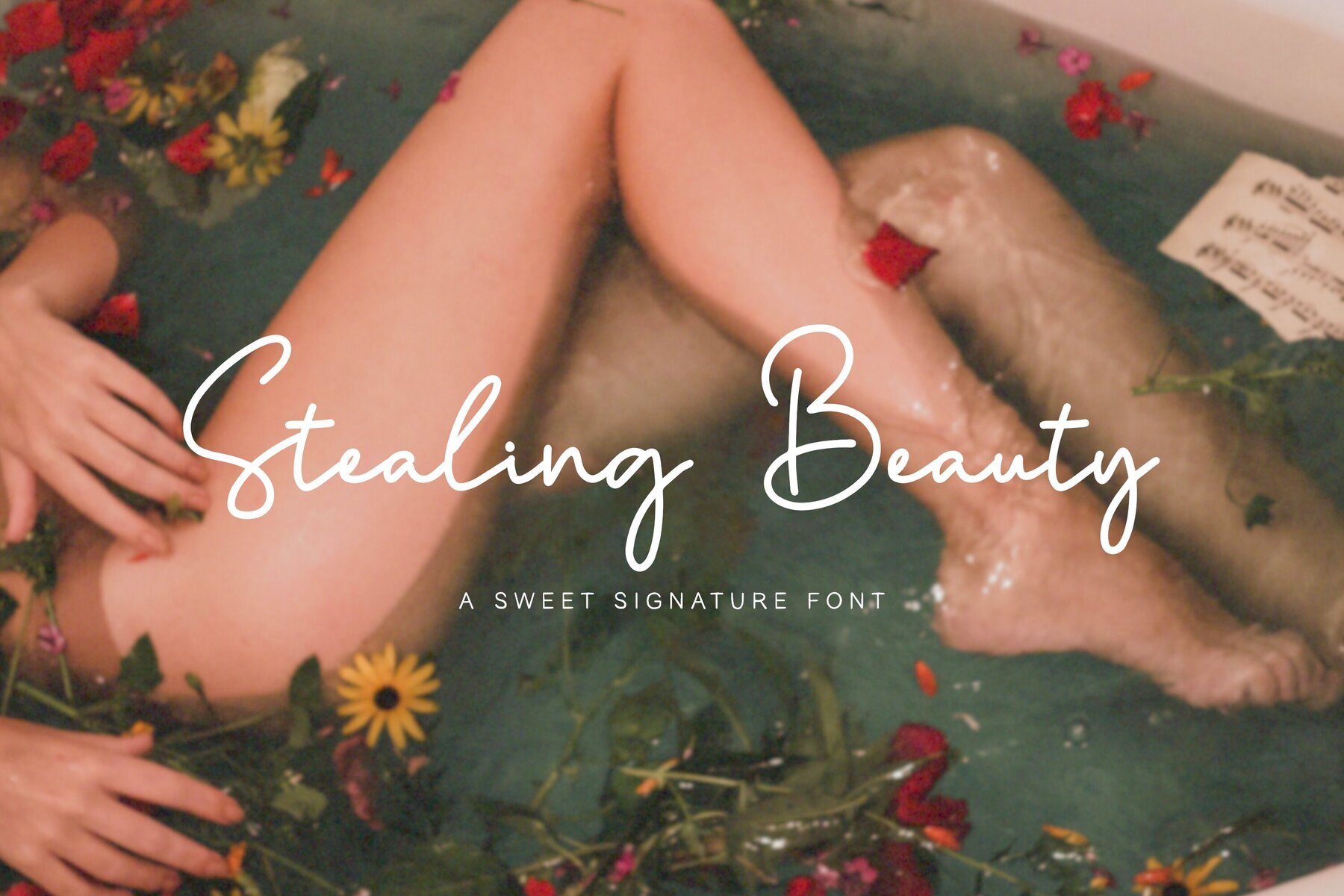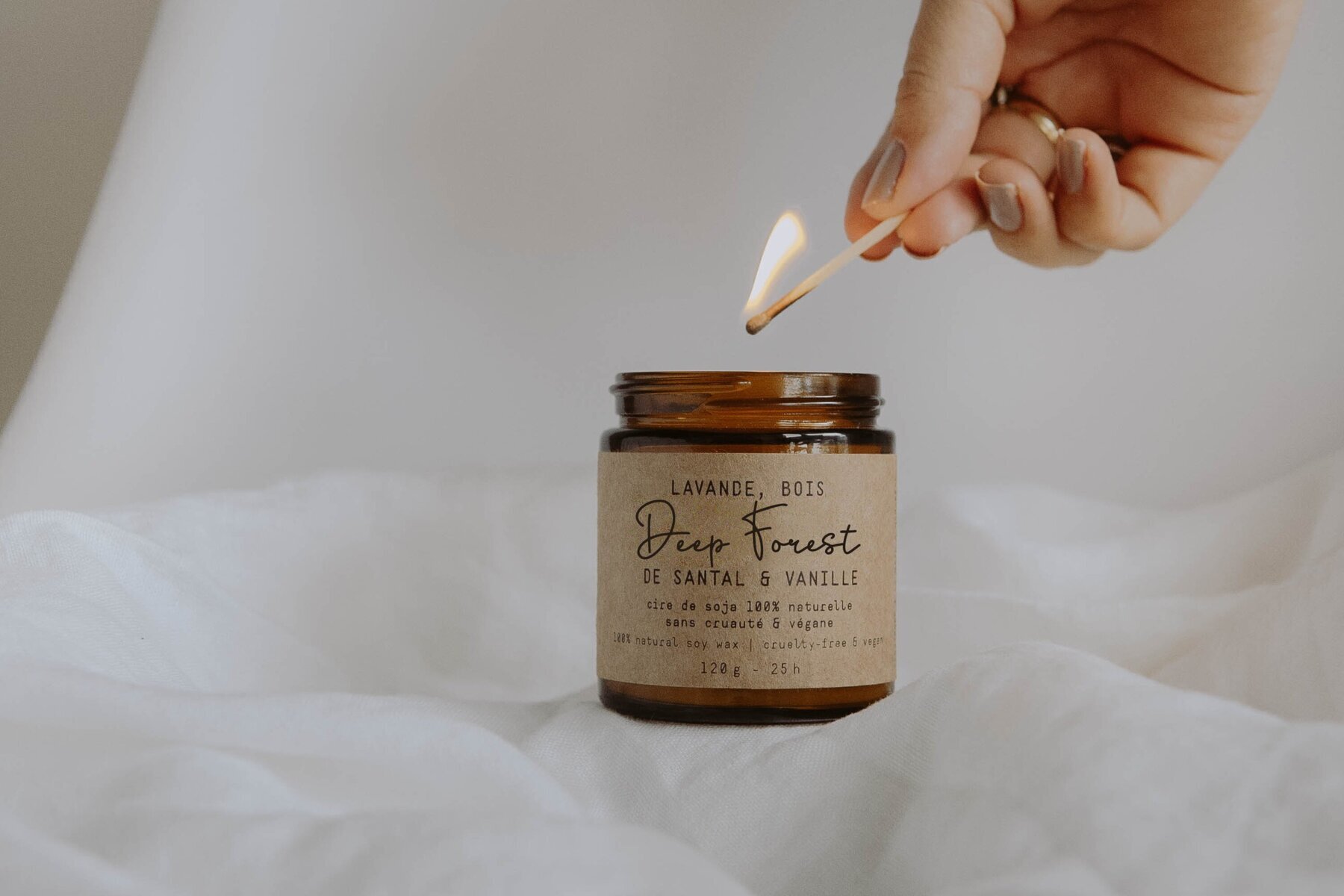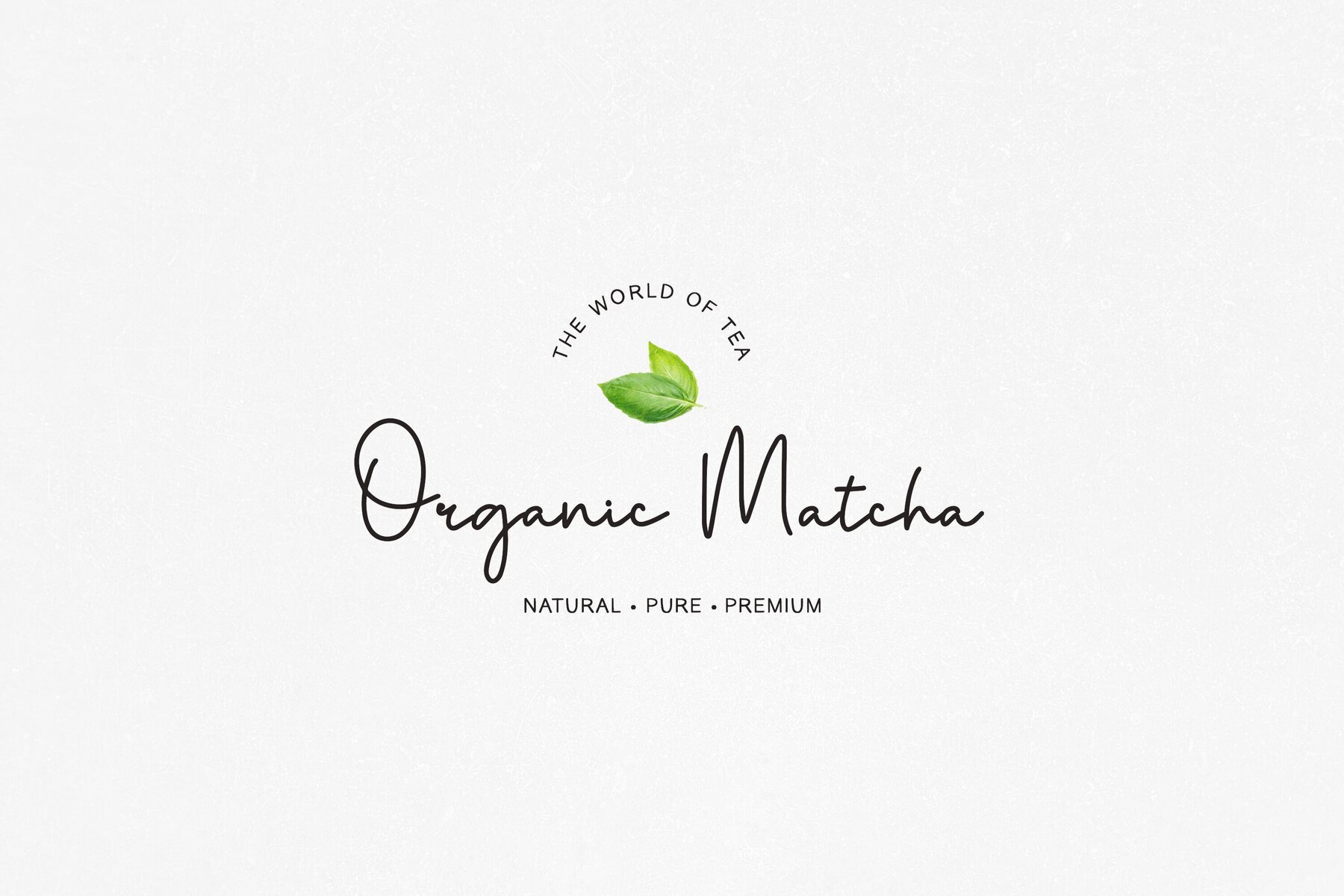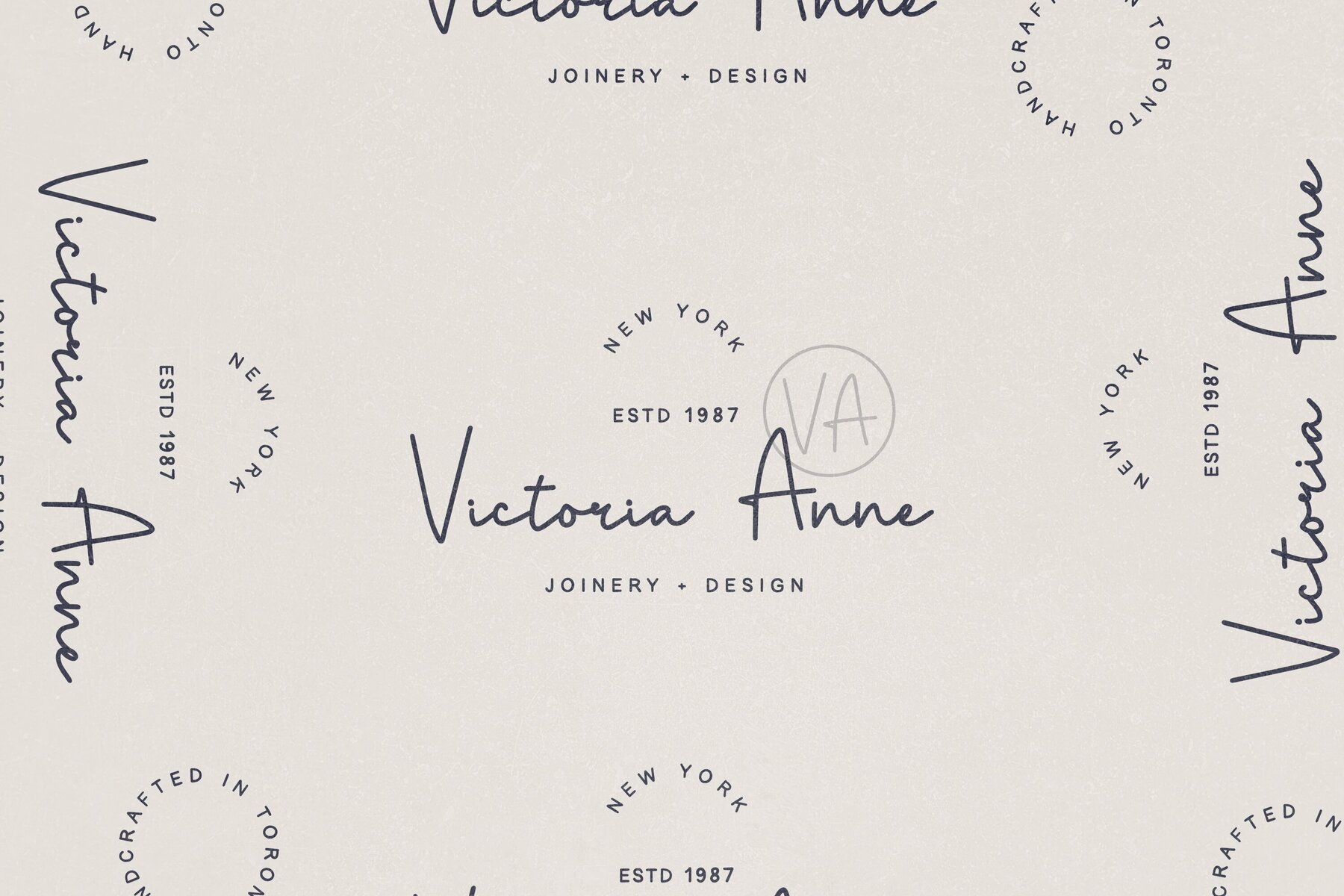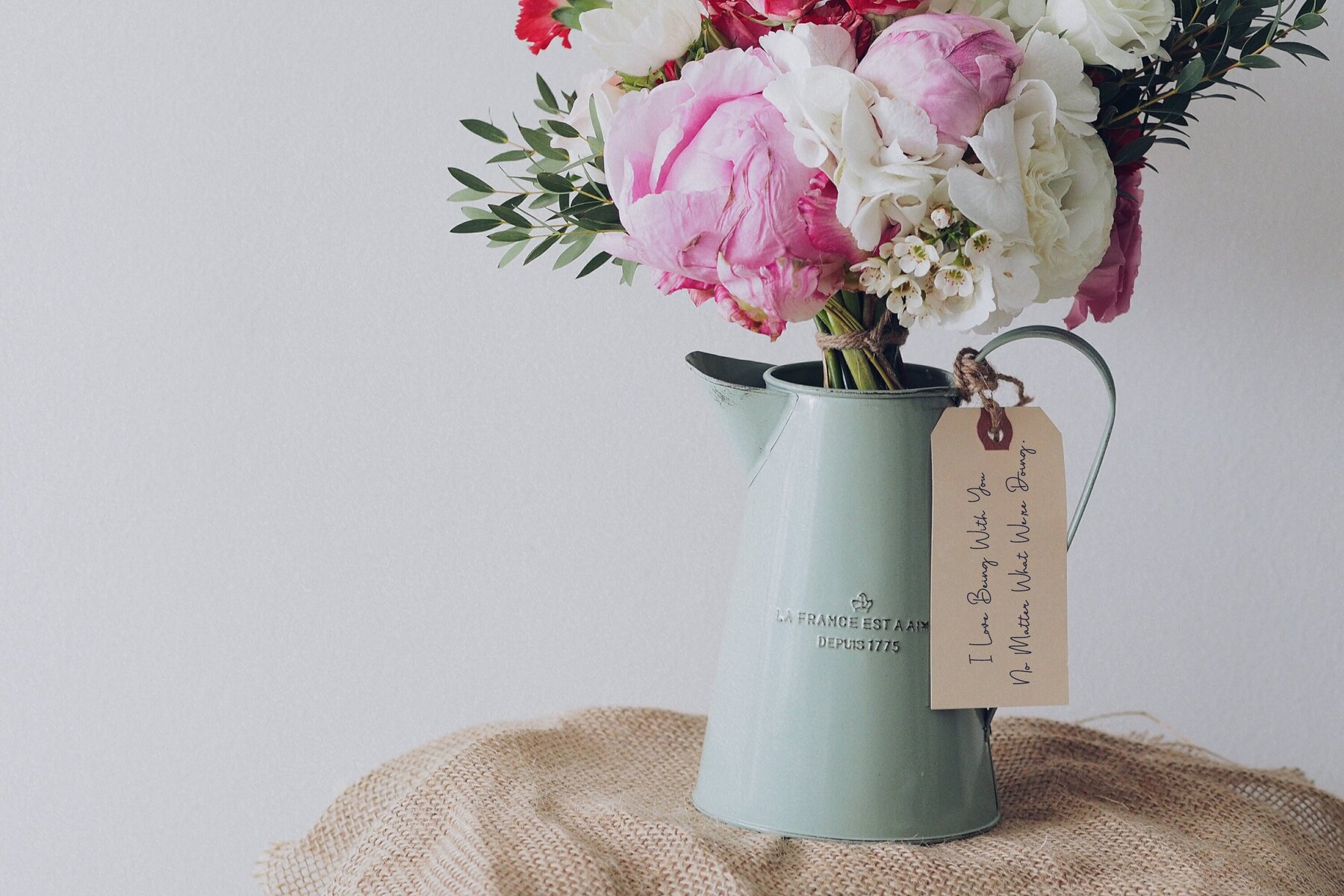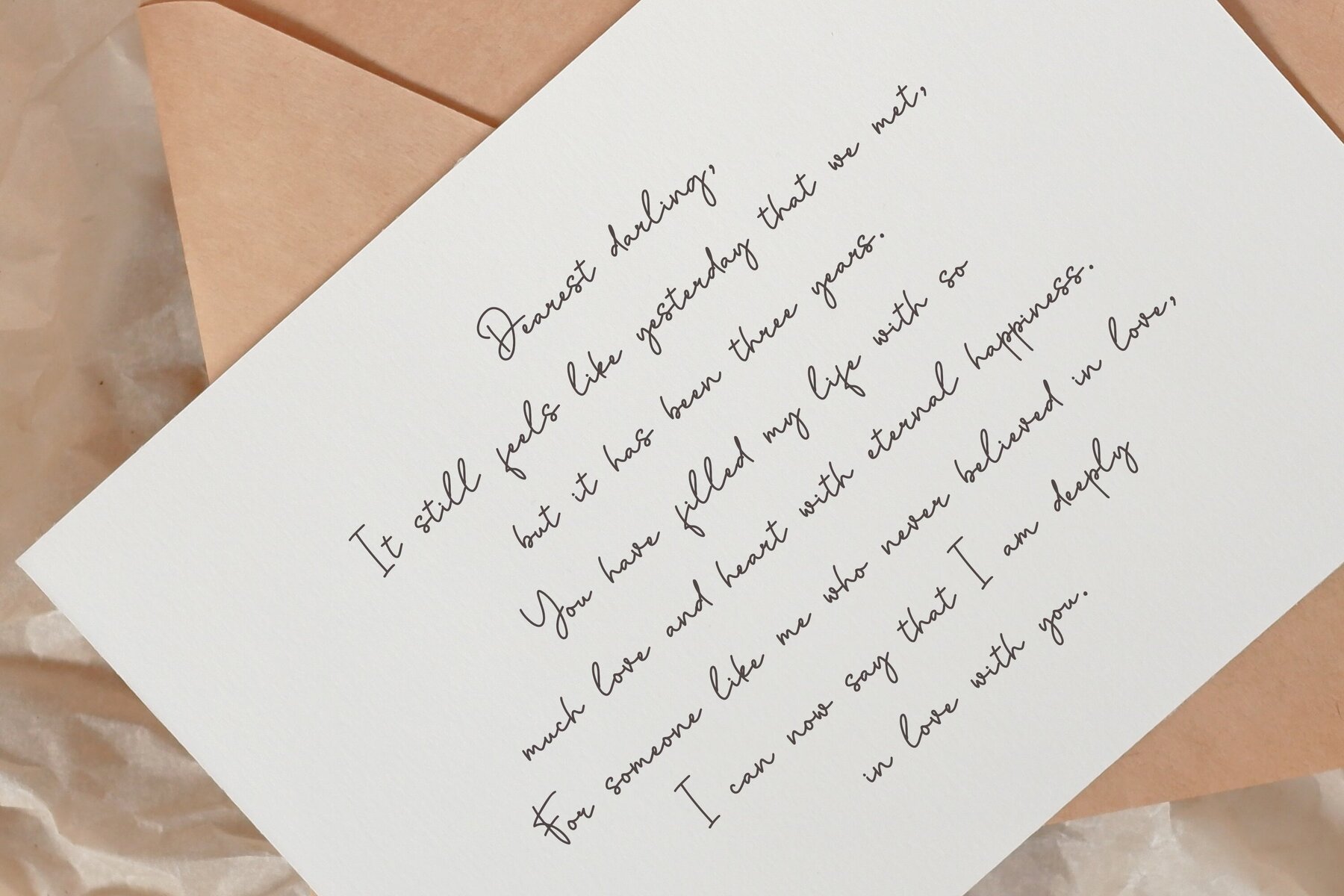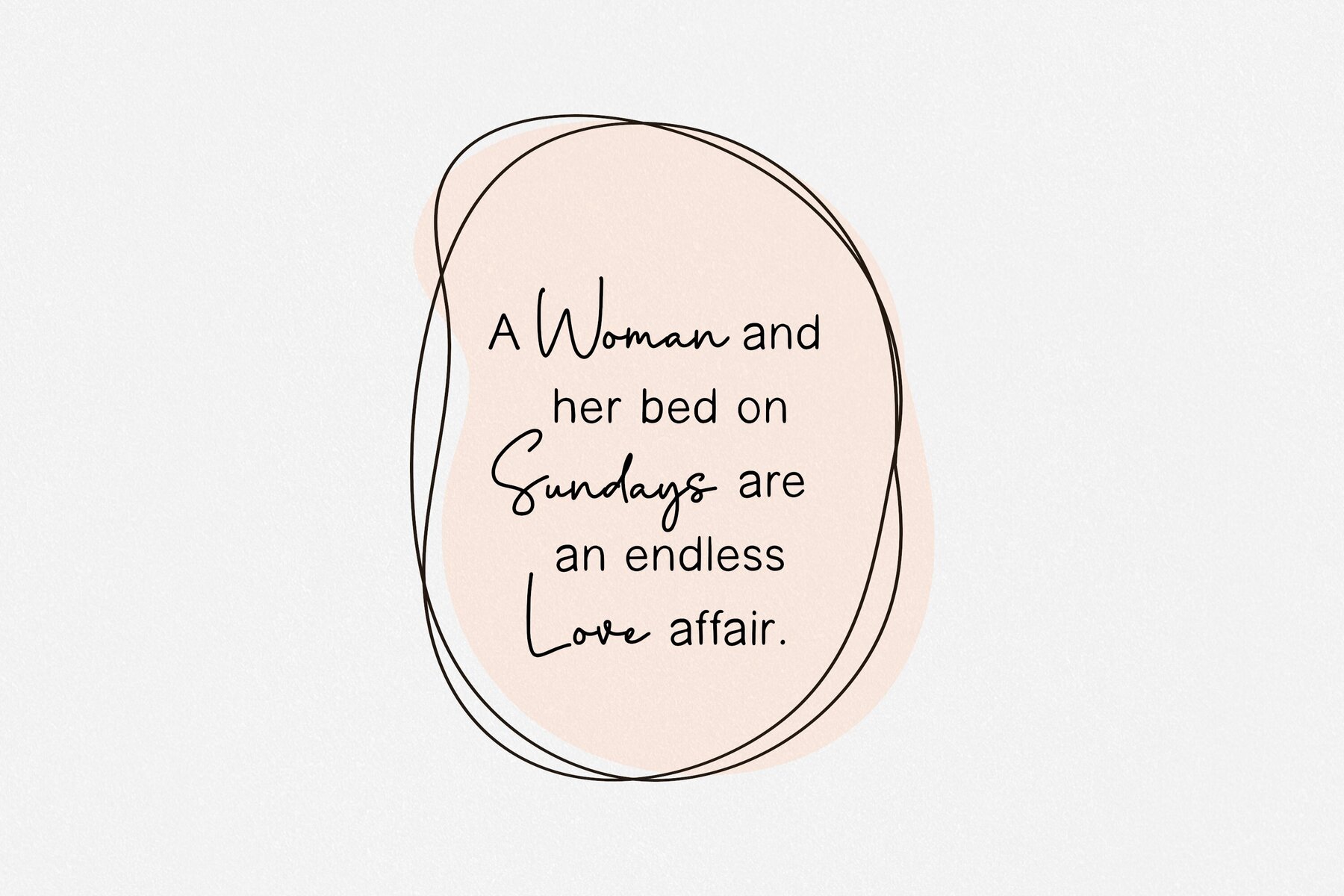
Stealing Beauty Font
Stealing Beauty
Stealing Beauty offers a delightful handwritten script style, perfect for adding a personal touch to your projects. Complementing this script is the Francesca Font, a clean sans serif that pairs seamlessly.Stealing Beauty: A Sweet Handwritten Script